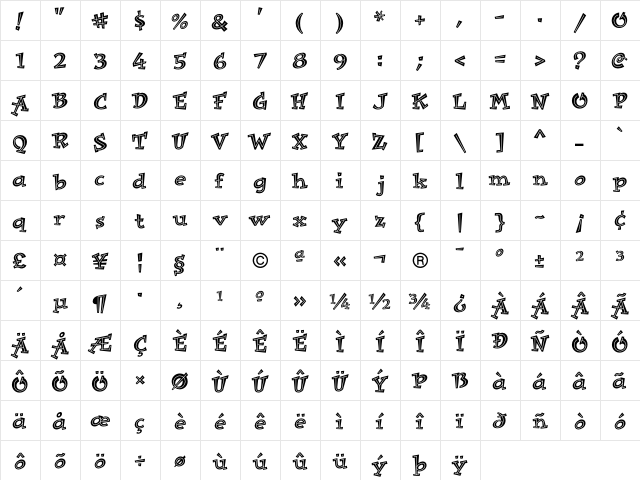
ImprovICG Inline Font Preview
ImprovICG Inline
ImprovICG Inline Font Details
Design Context for ImprovICG Typeface
ImprovICG brings ornamental detail and strong personality to headlines and identities, where visual impact matters more than quiet functionality.
Font Pairing: Pair with a clean neutral sans-serif for body copy to let ImprovICG's character lead without overwhelming the composition.
Pro Tip: Treat ImprovICG as the centrepiece of your typographic hierarchy. One strong heading set in a decorative face can carry an entire layout.